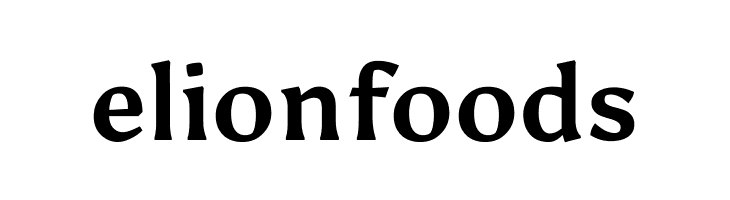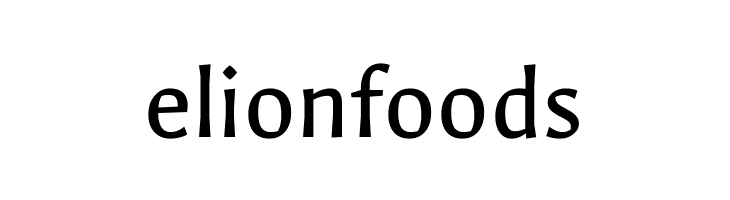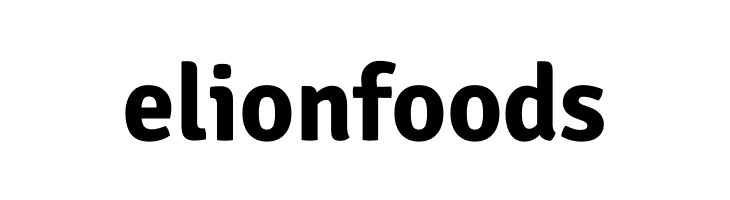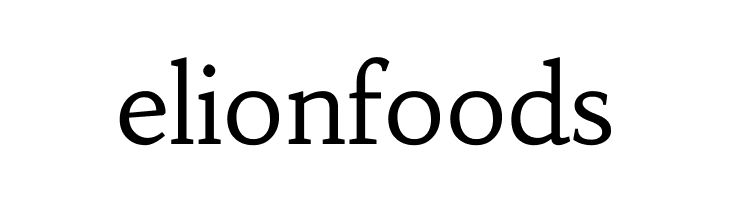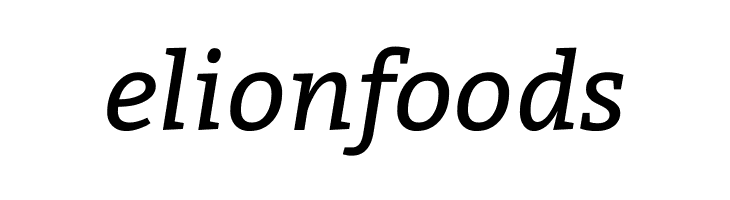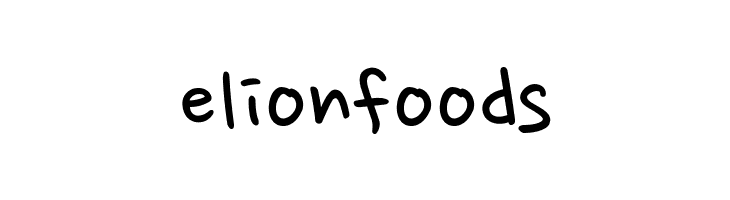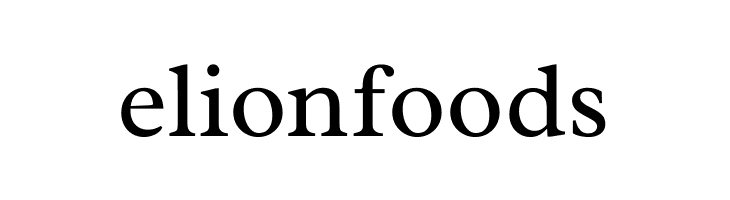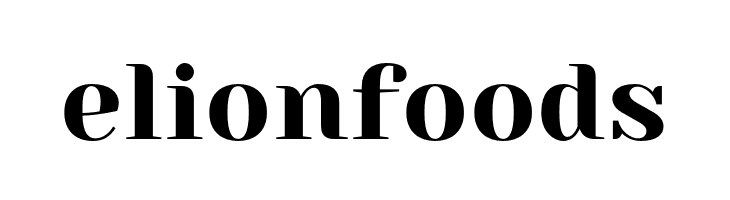
A bold serif font with strong, elegant characters ideal for headlines.
A modern, clean font with excellent readability and elegant curvature.
A bold, modern sans-serif font with excellent legibility and a slightly condensed style.
A classic serif font with elegant, refined letterforms and moderate contrast.
A classic serif font with a modern touch, offering elegance and readability.
A modern serif font with an elegant italic slant and moderate contrast.
A casual, handwritten-style font with smooth, flowing lines and a friendly appearance.
A classic serif font with elegant curves and moderate contrast.
A classic serif font with modern elegance and medium contrast.